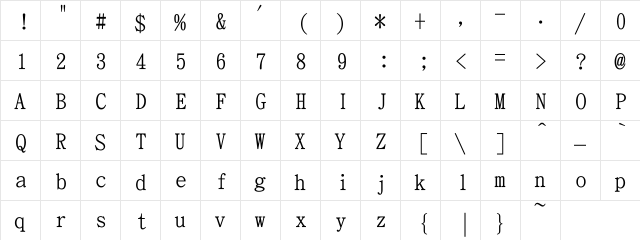
DFBiaoKaiW5_ZhuInH Regular Font Preview
DFBiaoKaiW5_ZhuInH Regular
DFBiaoKaiW5_ZhuInH Regular Font Details
Design Context for DFBiaoKaiW5_ZhuInH Typeface
DFBiaoKaiW5_ZhuInH takes a measured approach to typography — its balanced proportions and neutral character make it a reliable workhorse for both digital and print work.